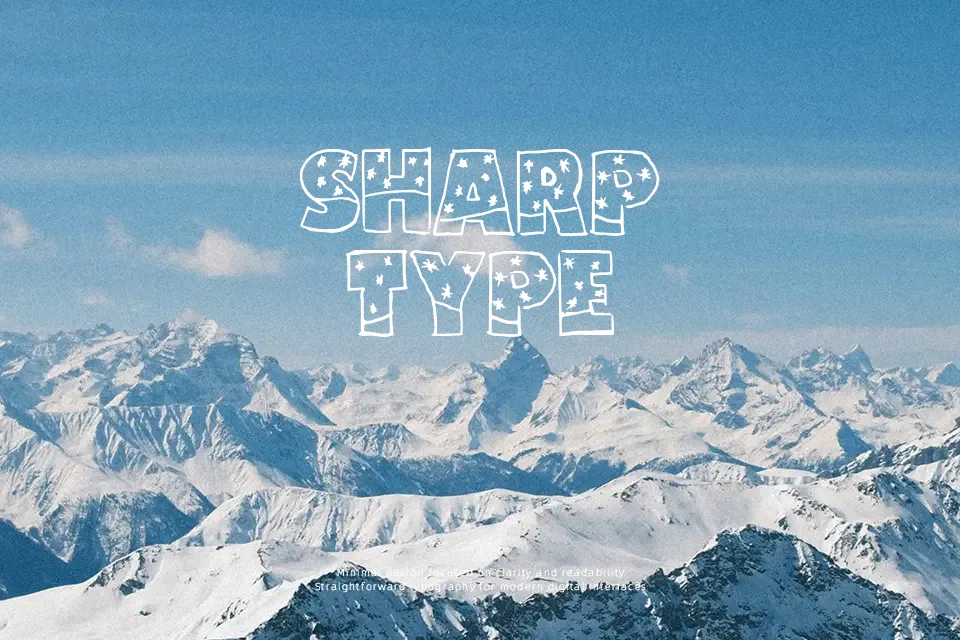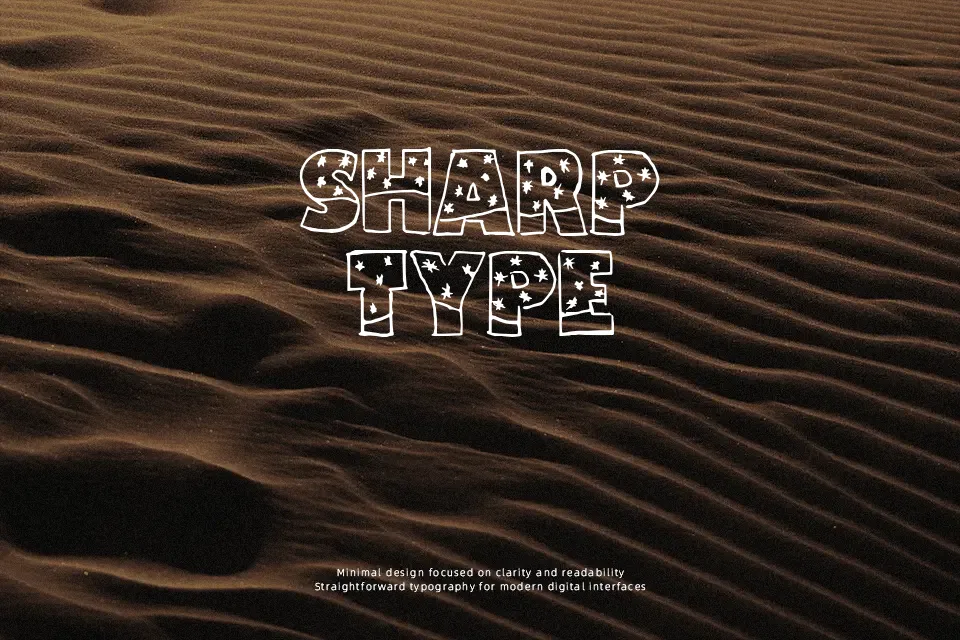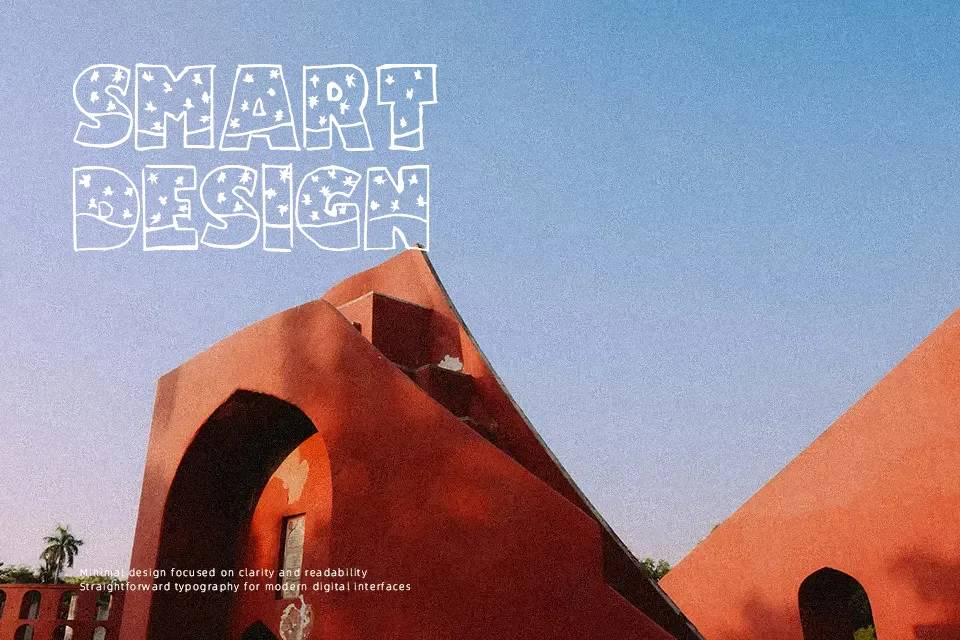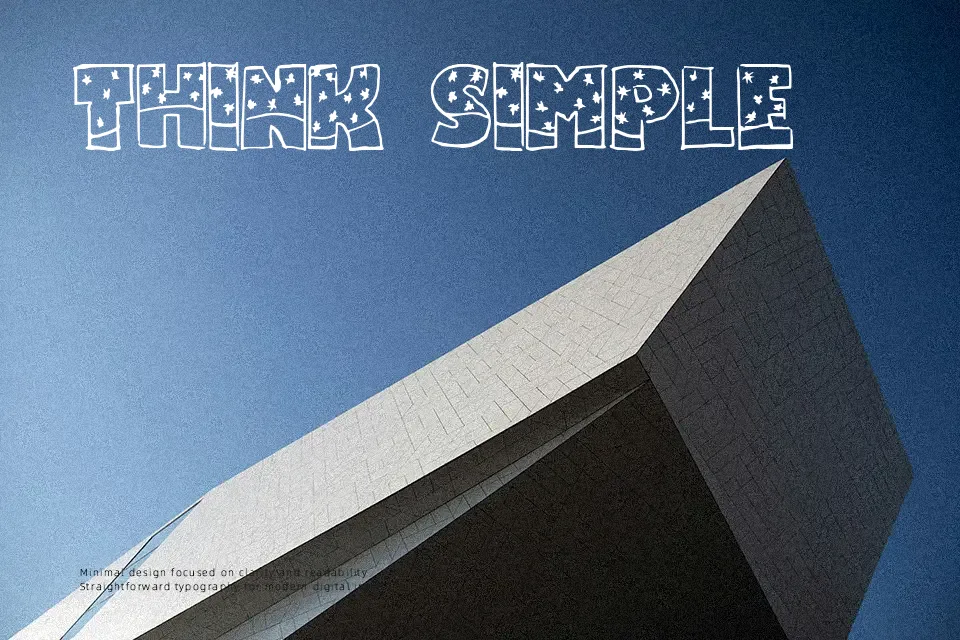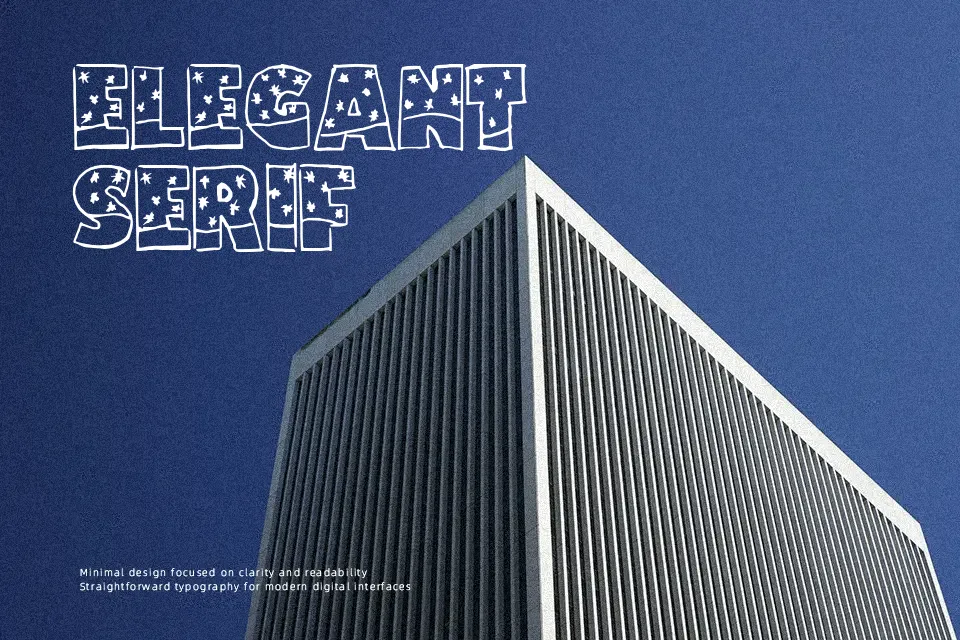
Snowfall Font
Snowfall Font uses decorative, uneven letterforms with a casual handmade appearance and softly varied stroke shapes. The characters appear broadly proportioned, giving short words a loose, playful rhythm rather than a formal typographic structure. Its visual detail is most effective in large titles, greeting cards, and themed packaging, where the individual shapes can remain visible. The spacing supports short display lines, but longer text blocks can become visually busy and less comfortable to scan. For practical use, it works best when paired with a simpler text face for supporting information.
holiday greeting cards,seasonal product labels,party invitations,poster headlines
long paragraph text,small interface labels,technical manuals,dense editorial layouts
Perfect for headline, holiday, and invitation, with a cold and decorative style.